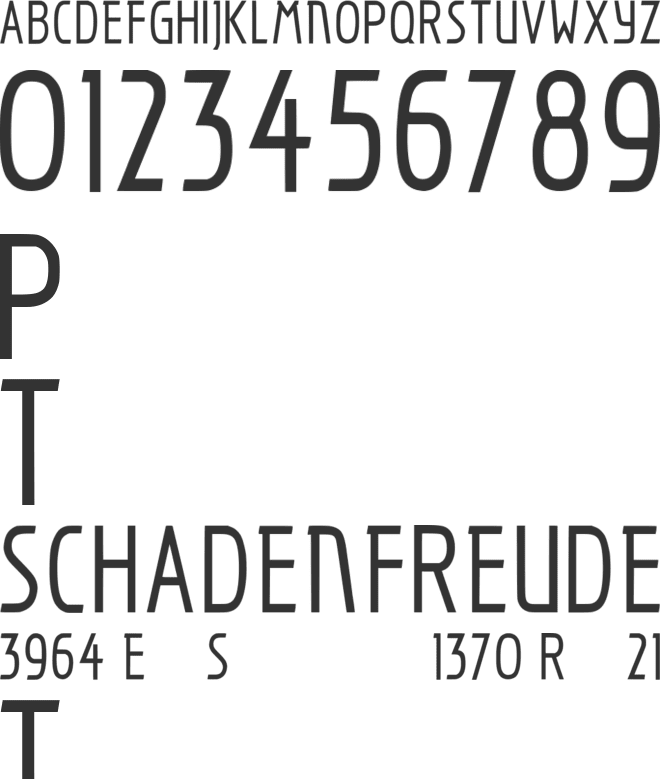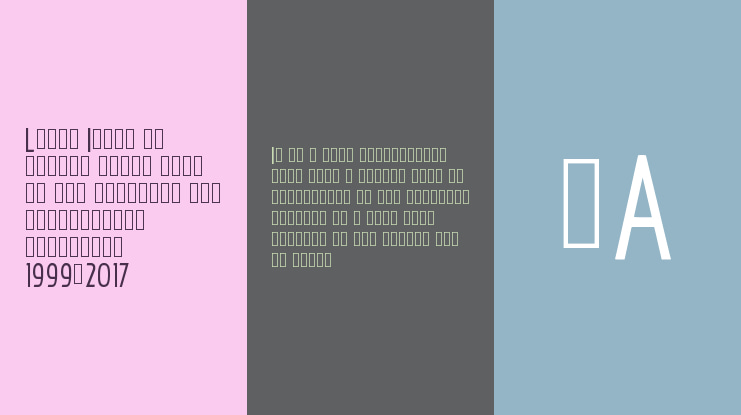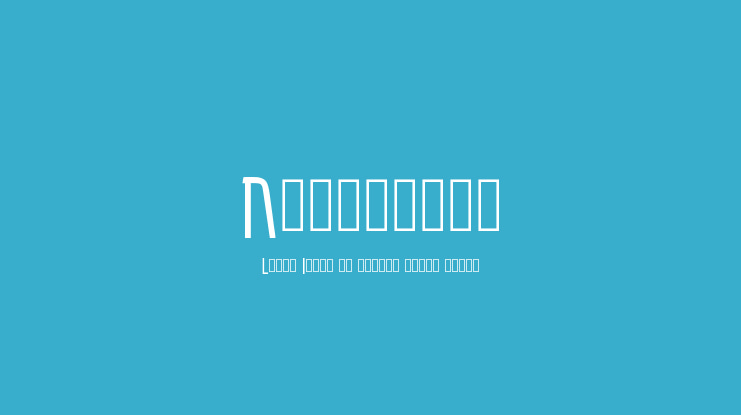
Ninestein Font
This font was recreated from the font used on the T.V show Terrahawks. I used photoshop to edit a scan of the Letraset sheet 'Spectrum' which enabled me to recreate the fonts using the pen tool, using the website 'Calligraphr' I was then able to convert my .png file to a workable and usable font that I called 'Ninestein'. It's also my first font, so it's a bit rough around the edges...